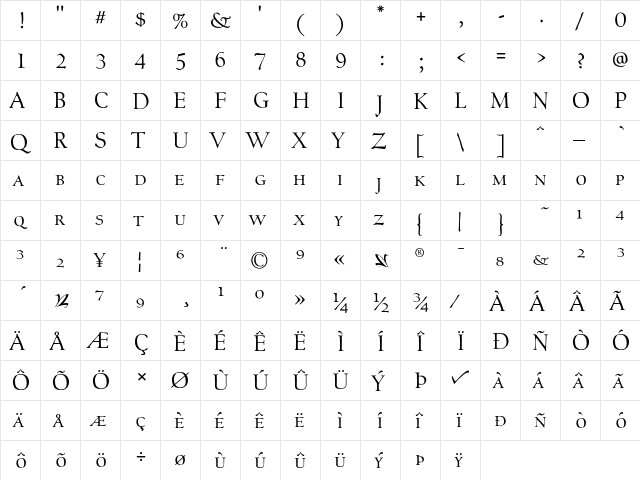
ClaremontOSSC Regular
Design Context for ClaremontOSSC Typeface
ClaremontOSSC is a composed and adaptable typeface that performs quietly and consistently across a wide range of design contexts.